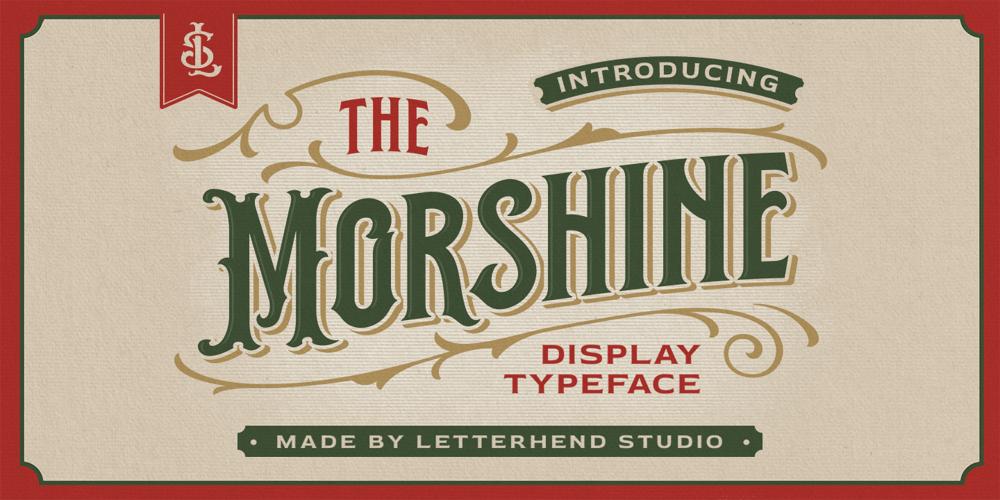
The Morshine Font Family was designed by Hendry Juanda and published by Letterhend. The Morshine contains 1 styles and family package options. Morshine is a typeface which is inspired by vintage lettering sign and art. While this font has a victorian touch, it still looks bold and solid. Very suitable for for headline, logotype, apparel, invitation, branding, packaging, advertising etc with old school / vintage theme. This typeface looks great combined with decorative ornaments. It comes in uppercase, lowercase, punctuations, symbols & numerals, stylistic set alternate, ligatures, etc also support multilingual and already PUA encoded.Features : uppercase & lowercase numbers and punctuation multilingual alternates and ligatures swashes PUA encoded We highly recommend using a program that supports OpenType features and Glyphs panels like many of Adobe apps and Corel Draw, so you can see and access all Glyph variations. How to access opentype feature : letterhend.com/tutorials/using-opentype-feature-in-any-software/